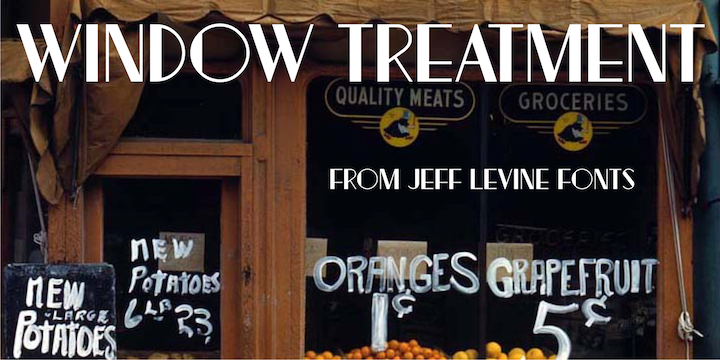
Window Treatment JNL is a art deco font published by Jeff Levine Fonts.
Window Treatment JNL gives a classic thick-and-thin line treatment to the Art Deco design found in the monoline font Window Dressing JNL.